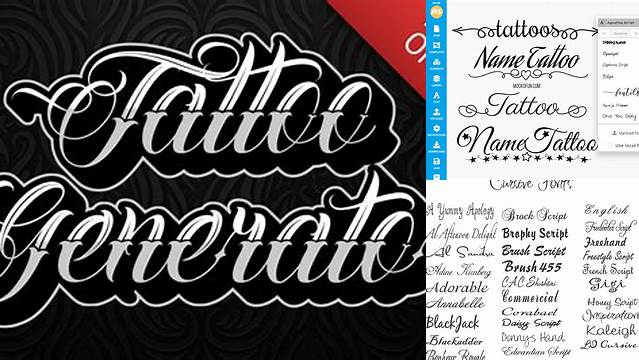
Cursive Tattoo Font Generator: Find Your Perfect Script
Hey ink enthusiasts! Are you on the hunt for that perfect cursive font to immortalize a name, a meaningful word, or even a special date on your skin? We all know that choosing the right font for your tattoo is a massive deal. It's not just about legibility; it's about capturing the essence and feeling you want your ink to convey. Cursive fonts, with their elegant flow and personal touch, are a super popular choice for names and script tattoos. But where do you find the best cursive fonts, and how do you make sure they look amazing as a tattoo? That's where a tattoo name fonts cursive generator comes in handy, guys! It’s your digital design studio, your font playground, and your ultimate guide to getting that beautiful script just right.
Exploring the Art of Cursive Tattoo Fonts
Let's dive into the captivating world of cursive tattoo fonts, shall we? These aren't your grandma's dusty old handwriting fonts, although some classic styles are definitely making a comeback. Modern cursive fonts are sleek, stylish, and incredibly versatile. They can range from delicate and flowing, like a whispered secret, to bold and dramatic, commanding attention with every curve. Think about the emotional weight a name carries, or the profound impact a single word can have. A well-chosen cursive font can amplify that feeling tenfold. It’s about finding a script that resonates with you and the story your tattoo tells. Whether it's the name of a loved one, a motivational mantra, or a significant date, the font is the vehicle that carries its meaning visually. Imagine a flowing, script-like font for a beloved's name, evoking a sense of romance and connection. Or perhaps a more structured, yet still cursive, font for a powerful word like 'Resilience,' conveying strength and determination. The possibilities are truly endless, and exploring different styles is part of the fun. A good cursive font generator can showcase a vast array of these styles, allowing you to preview how your chosen name or word will look in each one, helping you make an informed decision that you'll love for years to come.
Why Cursive Fonts Rule for Tattoo Names
Guys, let's be real: cursive fonts just have a certain je ne sais quoi when it comes to tattoo names. They bring a level of personality and intimacy that blocky or sans-serif fonts often struggle to match. A name written in cursive can feel like a personal signature, a direct connection from the artist to the wearer. It's softer, more organic, and often more aesthetically pleasing for script-based tattoos. Think about it – when you see a name elegantly looped and connected, it feels more personal, more yours. This is especially true for names of family members, partners, or children, where that sense of closeness and affection is paramount. Cursive also offers a fantastic range of styles, from delicate and fine-lined scripts that are perfect for smaller, more subtle tattoos, to bold, sweeping calligraphy that makes a statement. The fluidity of cursive allows for beautiful integration into other tattoo elements, such as flowers, ribbons, or abstract designs. A skilled tattoo artist can even customize a chosen font further, adding unique flourishes or adjusting the spacing to perfectly complement the placement and overall composition of your tattoo. This adaptability is a huge advantage, making cursive fonts a top choice for anyone looking to personalize their body art with meaningful text.
Finding the Best Cursive Fonts for Your Tattoo
So, you're ready to find that killer cursive font for your next tattoo. The key is to explore beyond the obvious. While some fonts are super popular, remember that uniqueness is also a big plus. When you’re using a tattoo name fonts cursive generator, take the time to browse through different categories. Look for fonts that are legible, especially when shrunk down for a tattoo. A font that looks amazing huge on a screen might become a blob of ink up close. Consider the weight of the font – thin lines can fade over time, while very thick lines might lose their cursive charm. You want a balance that ensures your tattoo ages gracefully. Think about the vibe you're going for: romantic, edgy, vintage, modern? Each style of cursive will evoke a different feeling. Don't be afraid to experiment with different generators and even look at handwritten samples from calligraphers for inspiration. Sometimes, the most beautiful scripts are those that have a slightly imperfect, human touch. When you find a font you like, try typing your name or word in various sizes to see how it holds up. This preview is crucial for making an informed decision. Remember, this is going on your skin forever, so patience and exploration are your best friends.
The Power of Customization in Cursive Tattoo Fonts
One of the coolest things about using a tattoo name fonts cursive generator is the potential for customization. While these tools offer a fantastic starting point, don't feel like you're locked into the default look. Many generators allow you to tweak certain aspects of the font – perhaps adjusting the spacing between letters (kerning), altering the size of loops, or even modifying the thickness of the strokes. This level of control is invaluable for creating a truly unique piece of body art. Imagine a flowing script where you can slightly lengthen a tail on a 'y' or add a subtle flourish to a capital letter. These small adjustments can make a massive difference in how the final tattoo looks and feels. Furthermore, once you've found a font you love, it's always a great idea to take that concept to your tattoo artist. They are the true artists, and they can take your chosen font and refine it, ensuring it translates perfectly to skin. They might suggest slight modifications for better readability, durability, or aesthetic appeal based on their experience. This collaboration between you, the generator, and your tattoo artist ensures that your cursive name tattoo is not just a font, but a personalized masterpiece.
Popular Cursive Styles for Tattoo Names
When you’re browsing a tattoo name fonts cursive generator, you’ll notice a ton of different styles. Let’s break down some of the most popular ones that guys and gals love for tattoo names. First up, we have the classic script fonts. These are your timeless, elegant styles that mimic traditional cursive handwriting. They often feature smooth, flowing connections between letters and can be very readable. Think of something that looks like it was written with a fountain pen. Then there are calligraphy fonts. These tend to be more artistic and dramatic, with varying line weights – thick downstrokes and thin upstrokes. They can add a real sense of sophistication and artistry to a name. For a more modern and minimalist vibe, check out contemporary script fonts. These often have cleaner lines, less embellishment, and a more streamlined look, perfect for a sleek and subtle tattoo. Don't forget about vintage or retro scripts. These can have a charming, old-school feel, sometimes with a bit of a flourish or a slightly imperfect, hand-drawn quality. Finally, there are brush script fonts. These mimic the look of a brush pen, offering a more fluid, expressive, and sometimes slightly textured appearance. Each style brings a unique personality to your name tattoo, so exploring these categories on your generator will definitely help you narrow down your perfect match.
####### Ensuring Legibility with Cursive Tattoo Fonts
Okay, guys, this is a super important point: legibility. With cursive fonts, especially, you need to be extra mindful of how readable your name or word will be once it's tattooed. Cursive inherently involves connected letters, and sometimes these connections can become muddled, especially in smaller tattoos or with certain font styles. A good tattoo name fonts cursive generator will offer previews that simulate how the text will look. Pay close attention to the spacing between letters and the clarity of each character. If the letters are too close together, they can blur into a single mass over time. Conversely, if the spacing is too wide, it might disrupt the flow that makes cursive so appealing. When you’re using the generator, try typing your name and looking at it in various sizes. See if it remains clear and distinct. If a particular font looks messy or hard to read even on the screen, it’s a big red flag. Your tattoo artist will also be able to advise you on which fonts will hold up best over time. They often recommend slightly thicker lines or fonts with more defined letterforms for better longevity and clarity. It’s a balance between artistic style and practical tattoo application, and getting it right ensures your name tattoo remains a beautiful and readable piece of art for years to come.
######## Understanding Font Weight and Tattoo Longevity
Let's talk about font weight, guys, because it's a crucial factor when you're picking cursive fonts for your tattoo. Font weight refers to the thickness or boldness of the lines in a typeface. With cursive scripts, this is especially important. Super thin, delicate lines might look incredibly elegant on screen, but on skin, they can be problematic. Over time, fine lines tend to blur and fade much faster than thicker ones. This can turn a beautifully intricate cursive name into a smudged, illegible mess down the line. On the flip side, fonts that are too thick might lose their graceful cursive quality, looking blocky and less like script. The sweet spot is usually a font with medium to bold weight, where the lines have enough substance to remain clear and distinct for years, but are still fine enough to retain the elegance of cursive. When you’re using a tattoo name fonts cursive generator, pay attention to how the different weights of a font appear. Most generators allow you to adjust this. Experiment with different thicknesses and preview how your name looks. It’s always a good idea to consult with your tattoo artist about their preferences and recommendations regarding font weights for script tattoos, as they have the practical experience of how these designs age on skin. Choosing the right weight is key to ensuring your cursive name tattoo ages beautifully and remains a clear, readable piece of art.
######### The Role of Tattoo Artists in Font Selection
While a tattoo name fonts cursive generator is an awesome tool, never forget the invaluable role of your tattoo artist. They are the pros, guys! They see these designs on skin every single day and know what works and what doesn’t. When you’ve narrowed down your choices using a generator, bring your selections to your artist. Show them the fonts you like, explain the vibe you’re going for, and listen to their expert opinion. They can tell you which fonts are likely to age well, which ones might be tricky to execute cleanly, and how certain styles will look on the specific part of your body you’ve chosen. Sometimes, a font that looks perfect on a screen might have subtle issues when translated to skin – maybe the loops are too tight, or the serifs (the little decorative strokes) are too fine. Your artist can suggest modifications to make the font work better, or even draw a custom script based on your chosen style. They might recommend slightly adjusting the spacing, thickening certain lines, or simplifying overly complex flourishes to ensure the longevity and readability of your tattoo. It’s a collaborative process, and their expertise is crucial for turning a digital font into a stunning, lasting piece of ink.
########## Previewing Your Name in Different Cursive Styles
This is where the magic of a tattoo name fonts cursive generator really shines, guys! The ability to preview your actual name or the word you want tattooed in dozens, even hundreds, of different cursive fonts is a game-changer. Instead of guessing how